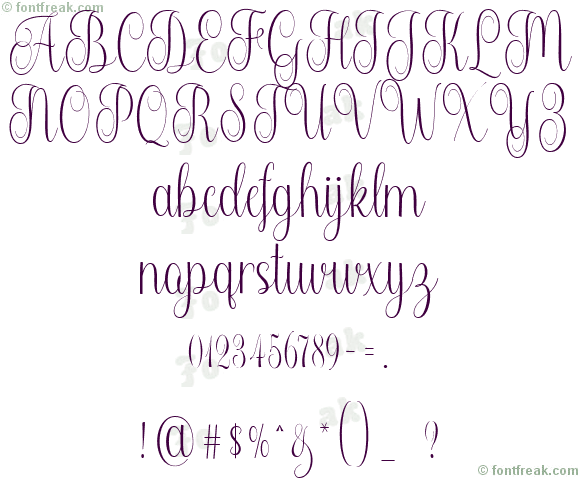
Rostina-Regular
About Rostina-Regular
Rostina-Regular is a beautifully crafted script font designed by Aqeela Studio, categorized as a decorative typeface that exudes elegance and sophistication. Its fluid strokes and graceful curves make it an ideal choice for projects that require a touch of class. The font features a medium stroke weight, providing a balance between visibility and delicacy, while the high contrast between thick and thin lines adds to its visual appeal. The generous spacing between characters contributes to its legibility, making it suitable for various applications.
This font is particularly well-suited for wedding invitations, where its romantic flair can elevate the overall design. Additionally, Rostina-Regular shines in branding projects, such as logos for boutiques and artisanal shops, where an inviting and stylish font can make a lasting impression. Other excellent use cases include restaurant menus, where it can add charm to the dining experience, and social media graphics, allowing content creators to craft eye-catching posts that stand out in feeds.
Target audiences for Rostina-Regular include graphic designers seeking unique typefaces for their projects, small business owners looking to enhance their branding efforts, and content creators wishing to make their work visually appealing.